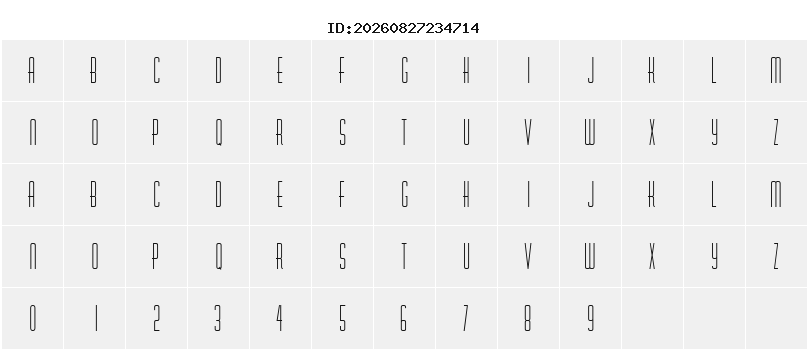
Tuxedo.ttf is a modern, elegant sans-serif font designed for ultimate readability and visual harmony. Perfect for branding, headlines, web design, and print materials.